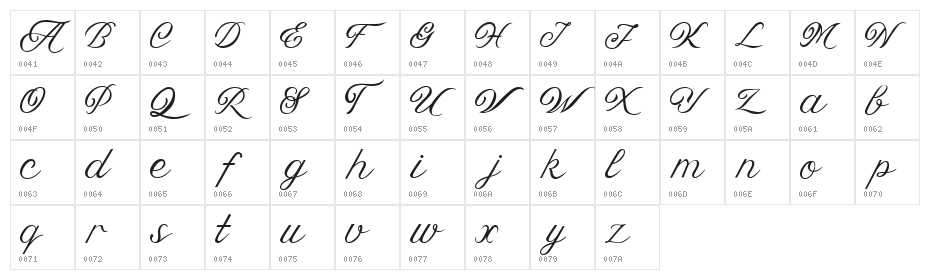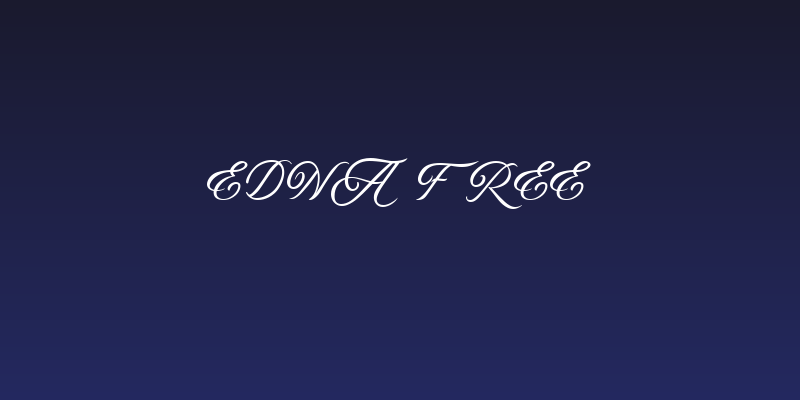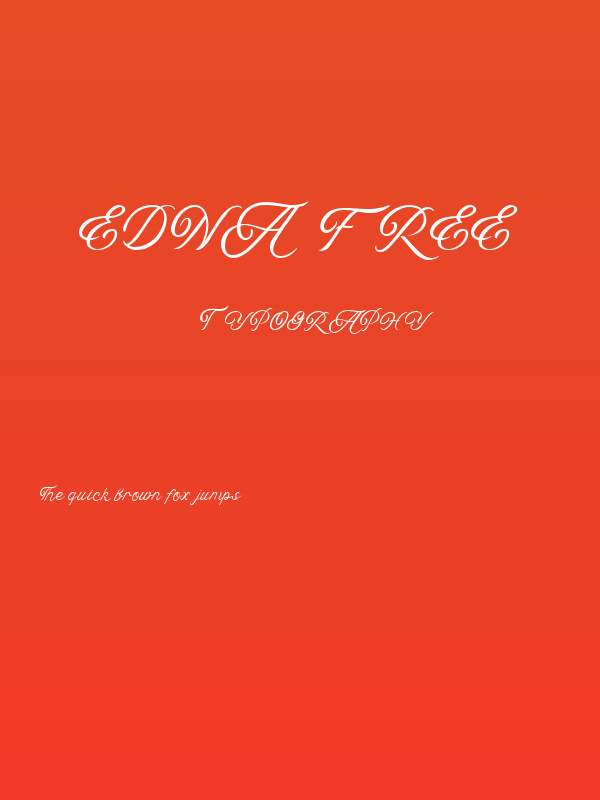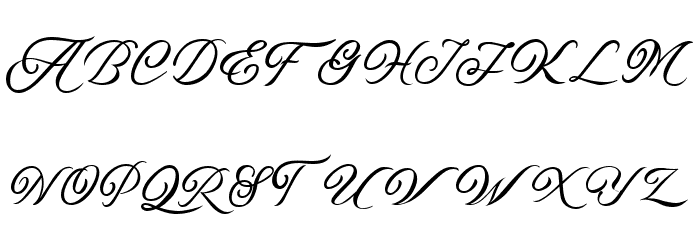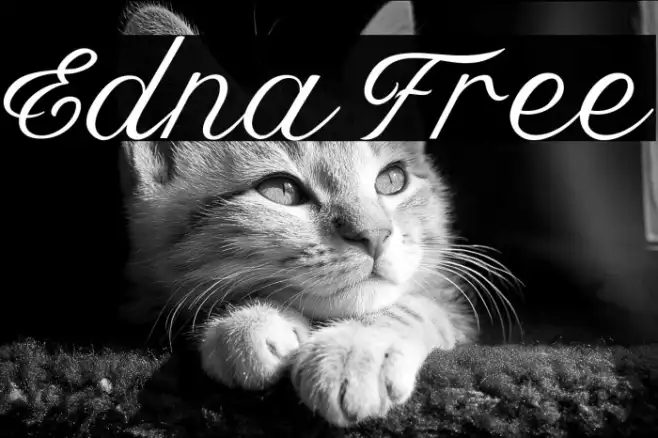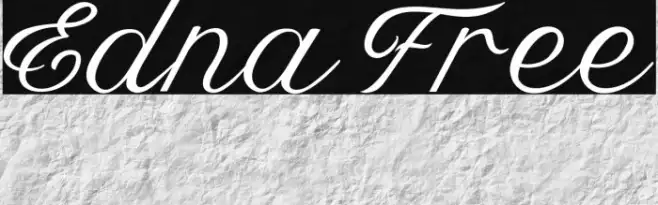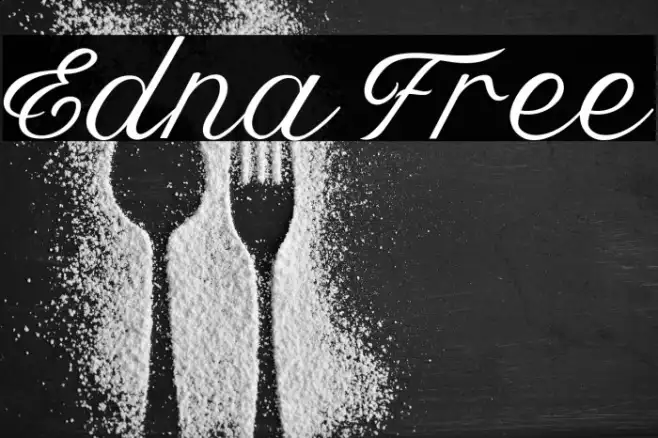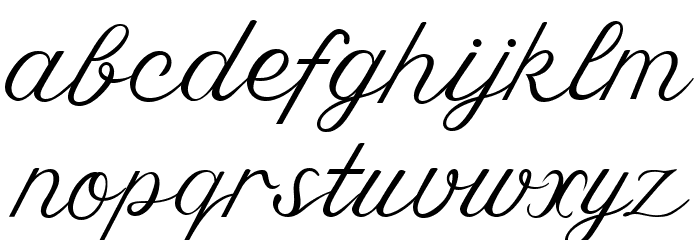
Edna Free Font
Edna Free Description
This elegant script font features flowing, cursive letters with a classic and sophisticated style. The uppercase letters are ornate, with sweeping curves and flourishes that give a sense of movement and grace. The lowercase letters maintain a consistent flow, connecting smoothly to create a harmonious look. The font's overall appearance is refined and stylish, making it suitable for formal invitations, branding, and decorative purposes. The characters are well-spaced, ensuring readability while maintaining the script's fluidity. This font exudes a timeless charm, perfect for projects that require a touch of elegance.
| Proposed Projects | Ideal for wedding invitations, luxury branding, greeting cards, and decorative designs. |